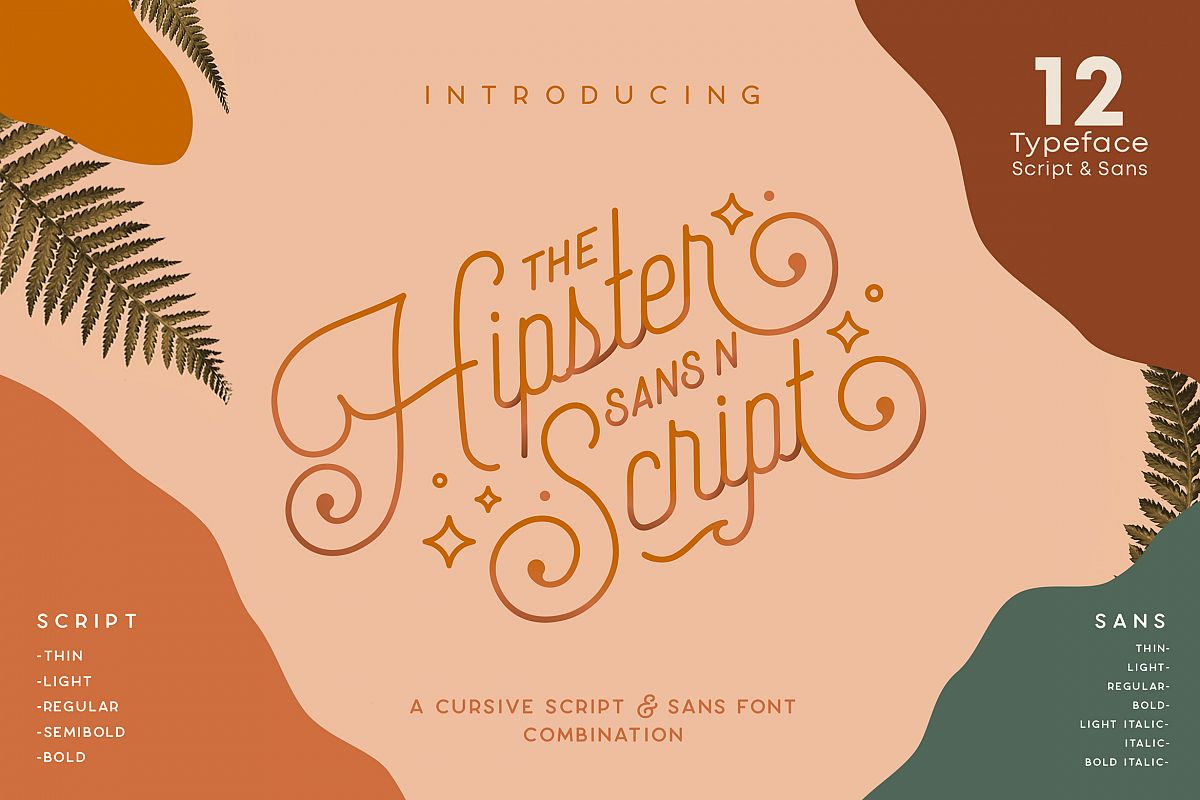
Hipster Style Script and Sans Typeface
Hipster Style Script and Sans Typeface is perfect for artisanal coffee shop branding, vintage-inspired boutique identities, craft brewery communications, independent bookstore signage, trendy restaurant menus, handmade product packaging, creative studio materials, and authentic lifestyle advertising campaigns. This stylish typeface collection works wonderfully in both digital applications and print media where vintage authenticity and indie culture sophistication are essential design elements.
What makes Hipster Style Script and Sans Typeface so exciting is its perfect capture of contemporary indie culture through carefully curated letterforms that embody the same artisanal sensibility and vintage revival spirit that defines authentic hipster aesthetics and craft culture movements. The font features distinctive characters with artisanal proportions, vintage-inspired details, and indie culture elements that communicate creative authenticity, cultural sophistication, and the discerning taste of those who appreciate handcrafted quality over mass production. Its cultured personality and indie heritage make it ideal for brands seeking to establish credibility in creative markets while appealing to audiences who value authenticity, craftsmanship, and the curated lifestyle of independent culture.
The Hipster Style Script and Sans Typeface collection includes complementary script and sans-serif families with coordinated styling, along with vintage alternates and artisanal ornamental elements. Each style maintains the typeface's authentic character while offering comprehensive character sets including craft-inspired numerals, indie punctuation marks, and special symbols designed to enhance artisanal communications and vintage branding efforts across various creative contexts.
This remarkable typeface collection represents the perfect fusion of indie culture aesthetics and contemporary design functionality for lifestyle and creative industries. Whether you're developing craft coffee brand identities, creating vintage boutique materials, or designing independent business promotions, Hipster Style Script and Sans Typeface Free Download delivers the authentic sophistication and versatility needed to connect with culturally aware audiences. The font's indie appeal makes it particularly effective for craft businesses, independent retailers, artisanal producers, and organizations celebrating the authentic spirit of creative independence and curated lifestyle choices.
The meticulously crafted vintage details and optimized indie performance in Hipster Style Script and Sans Typeface ensure both cultural authenticity and clear communication across all artisanal applications. Its sophisticated presence makes it perfect for indie branding, artisanal marketing materials, and authentic communications where its full hipster character can create lasting connections with audiences who appreciate genuine creativity, cultural sophistication, and the carefully curated aesthetics of independent lifestyle culture.